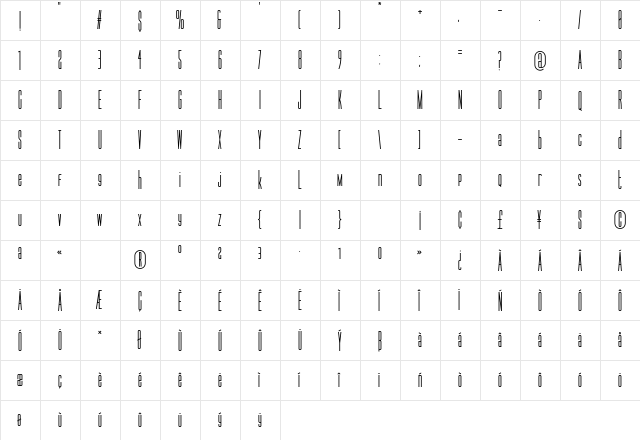
LegalObligationSans Regular
| Foundry | Christopher King | Wing's Art Studio |
| Designer | Christopher King |
Design Context for LegalObligationSans Typeface
LegalObligationSans offers clean, dependable letterforms without strong stylistic allegiance, making it a practical choice for designers who need flexibility.